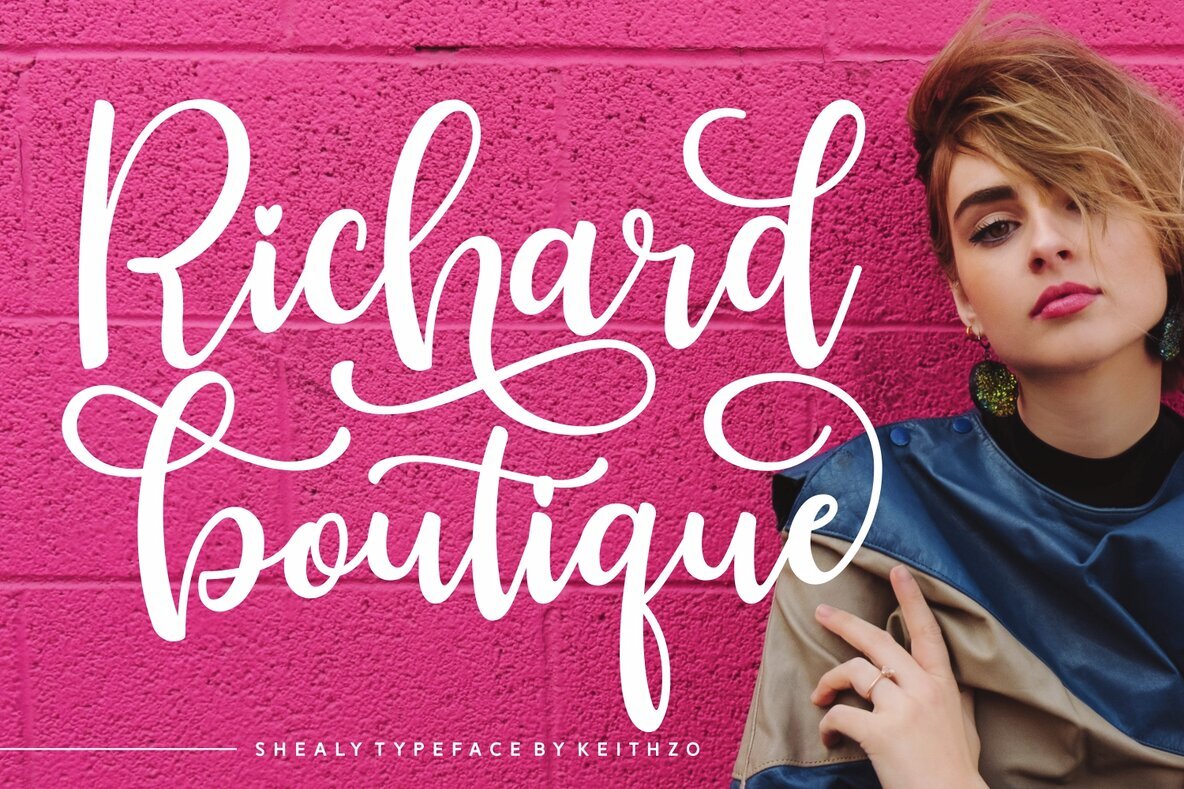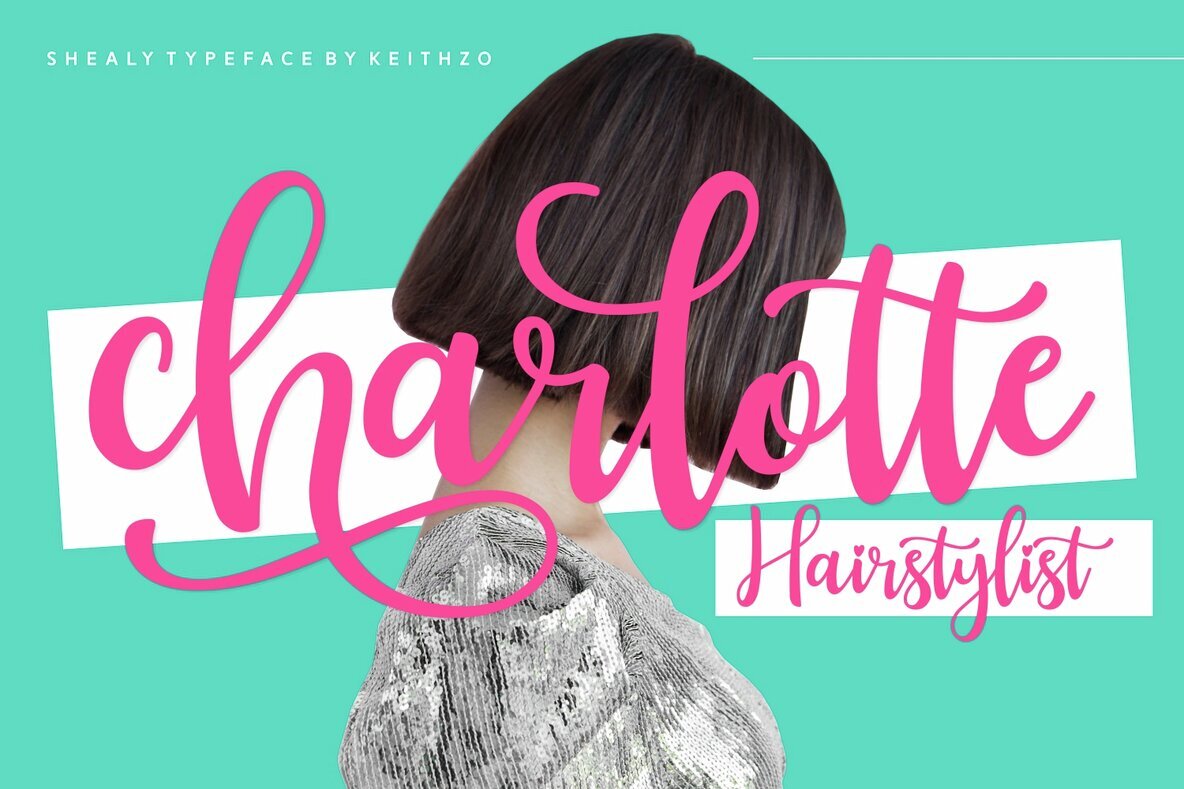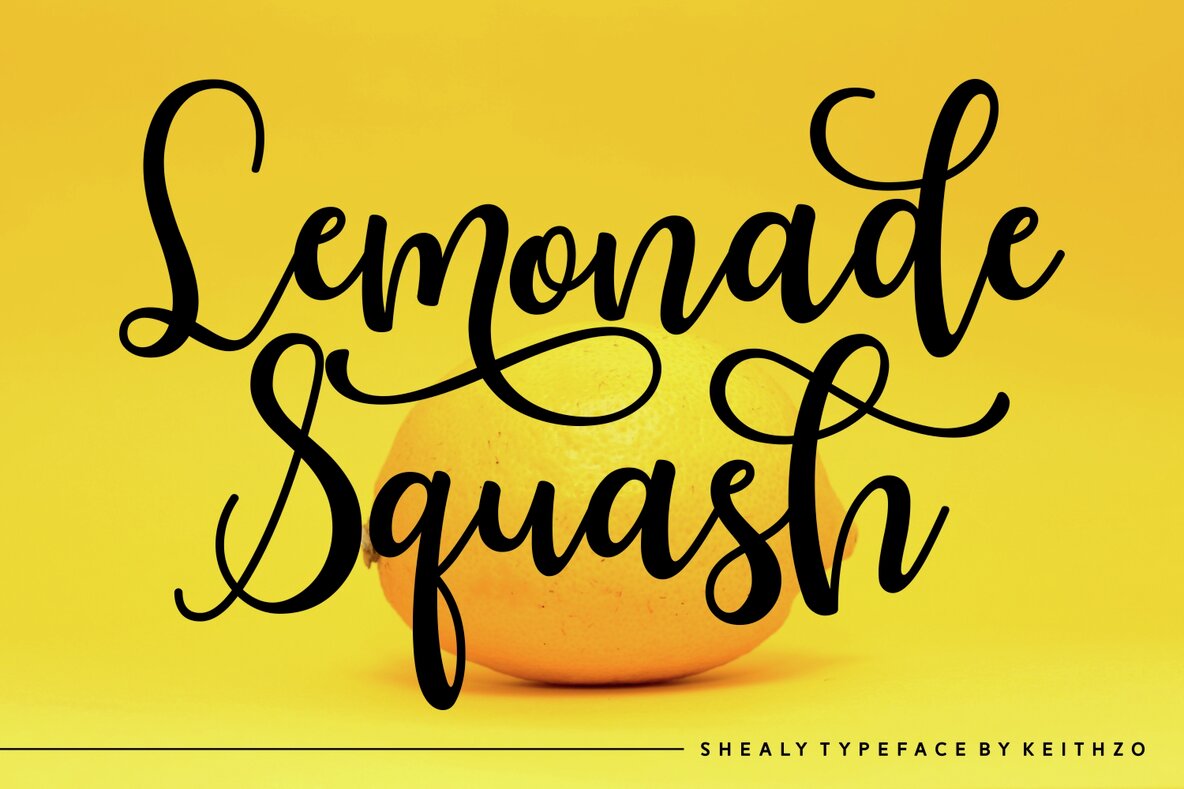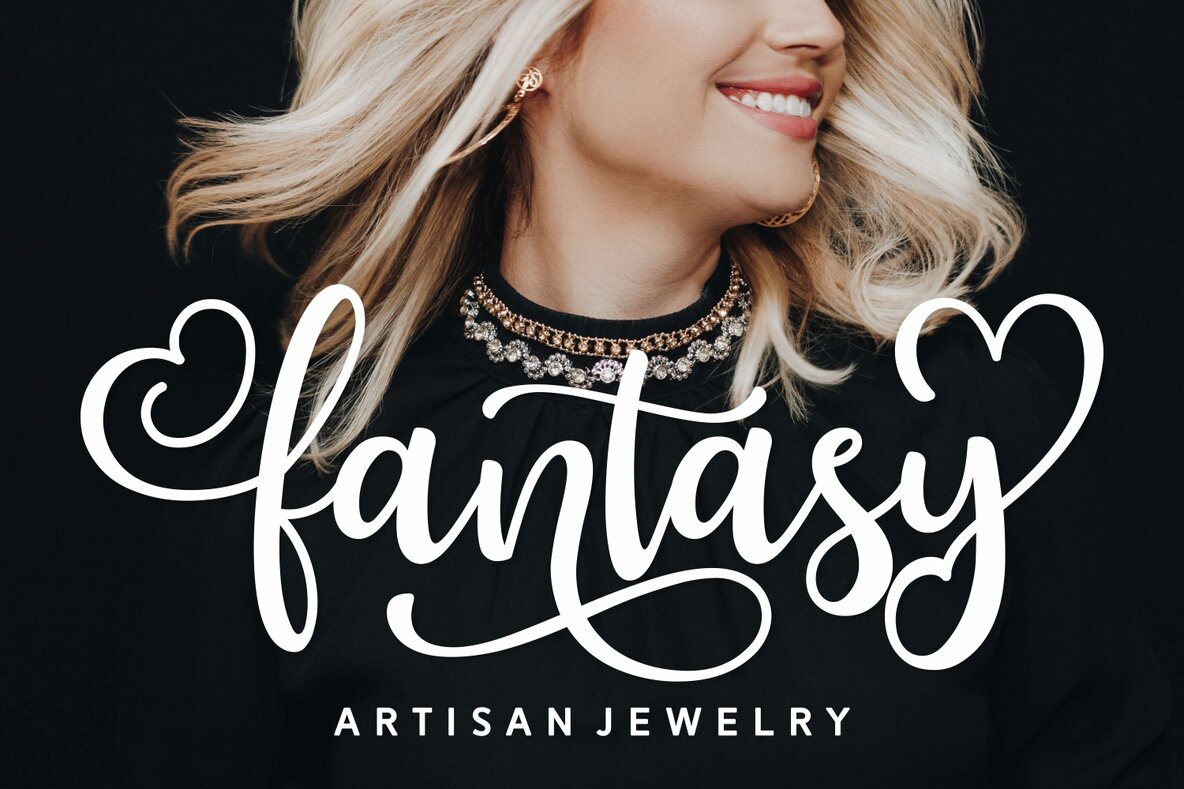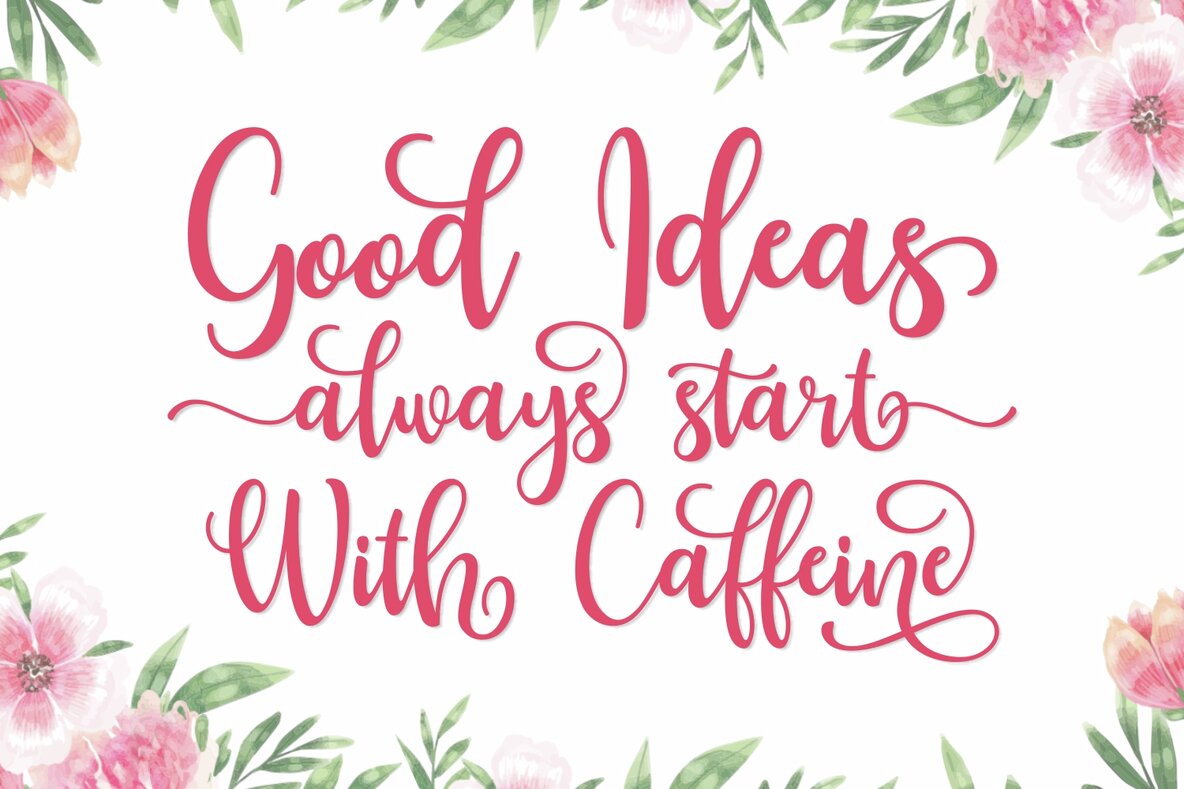
Shealy Font
Shealy
Shealy embodies both charm and elegance through its stunning script style that pays tribute to classic calligraphy. This font features a varying baseline, smooth lines, gorgeous glyphs, and stunning alternates. Perfect for elevating a variety of design projects to new heights, Shealy is ideal for branding, headings, wedding designs, invitations, signatures, logos, labels, and more.Shealy: A Charming Script Font by KEITHZO